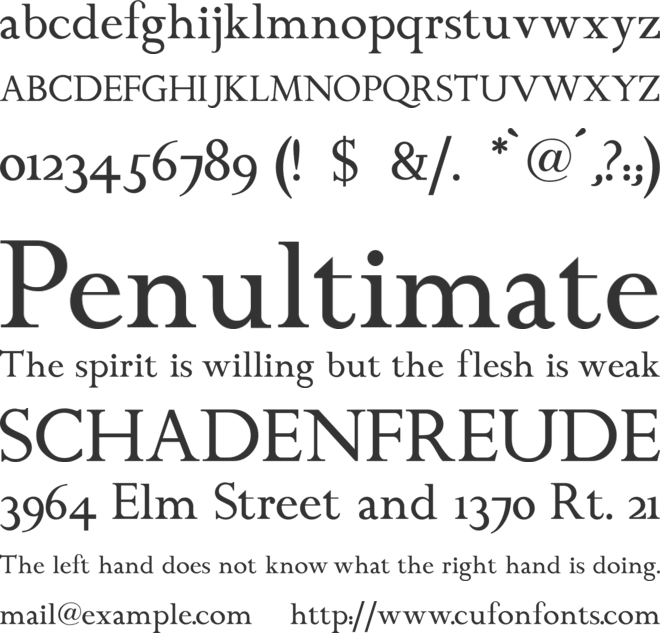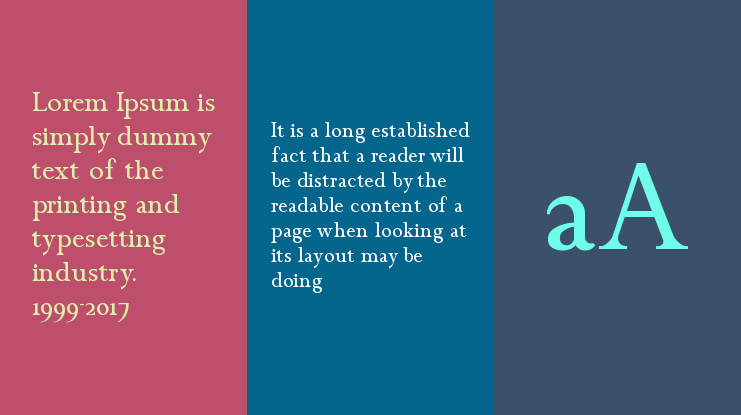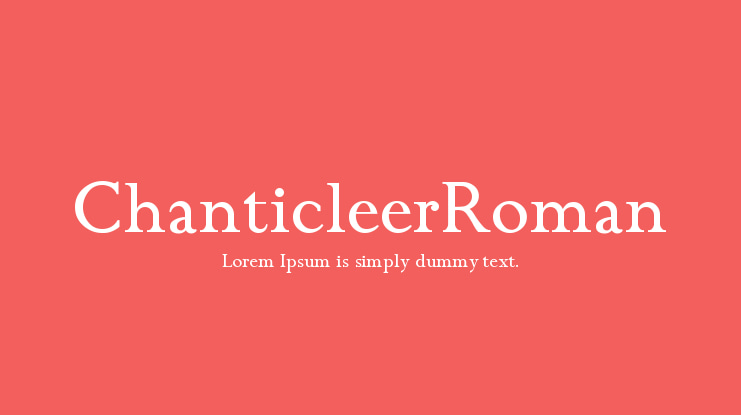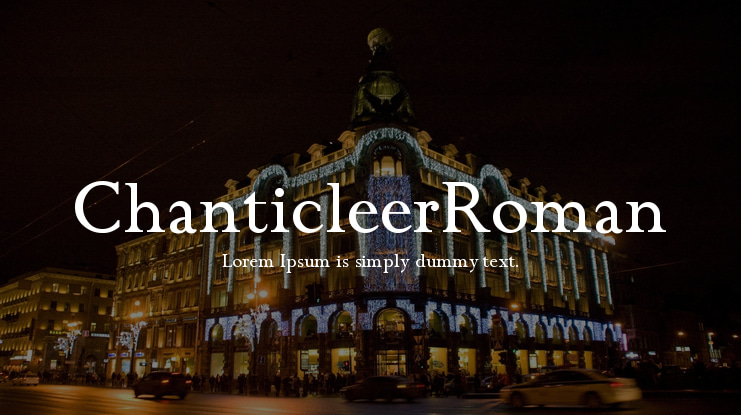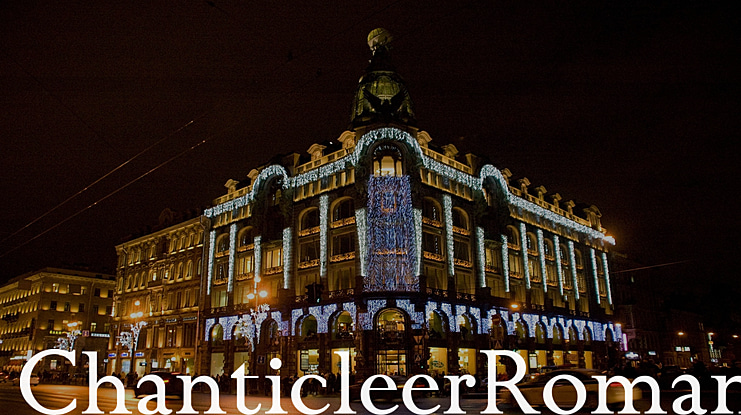
ChanticleerRoman Font
The second offering in my “Storybook Fonts” series, based on Golden Cockerel, designed by Eric Gill. ITC offers a version of this font, but it doesn’t have a lot of the idiosyncrasies or charm of the original. My version maintains and enhances both. Useful in both headlines and body copy: one of these days, I hope to do a bold and italic version, as well.